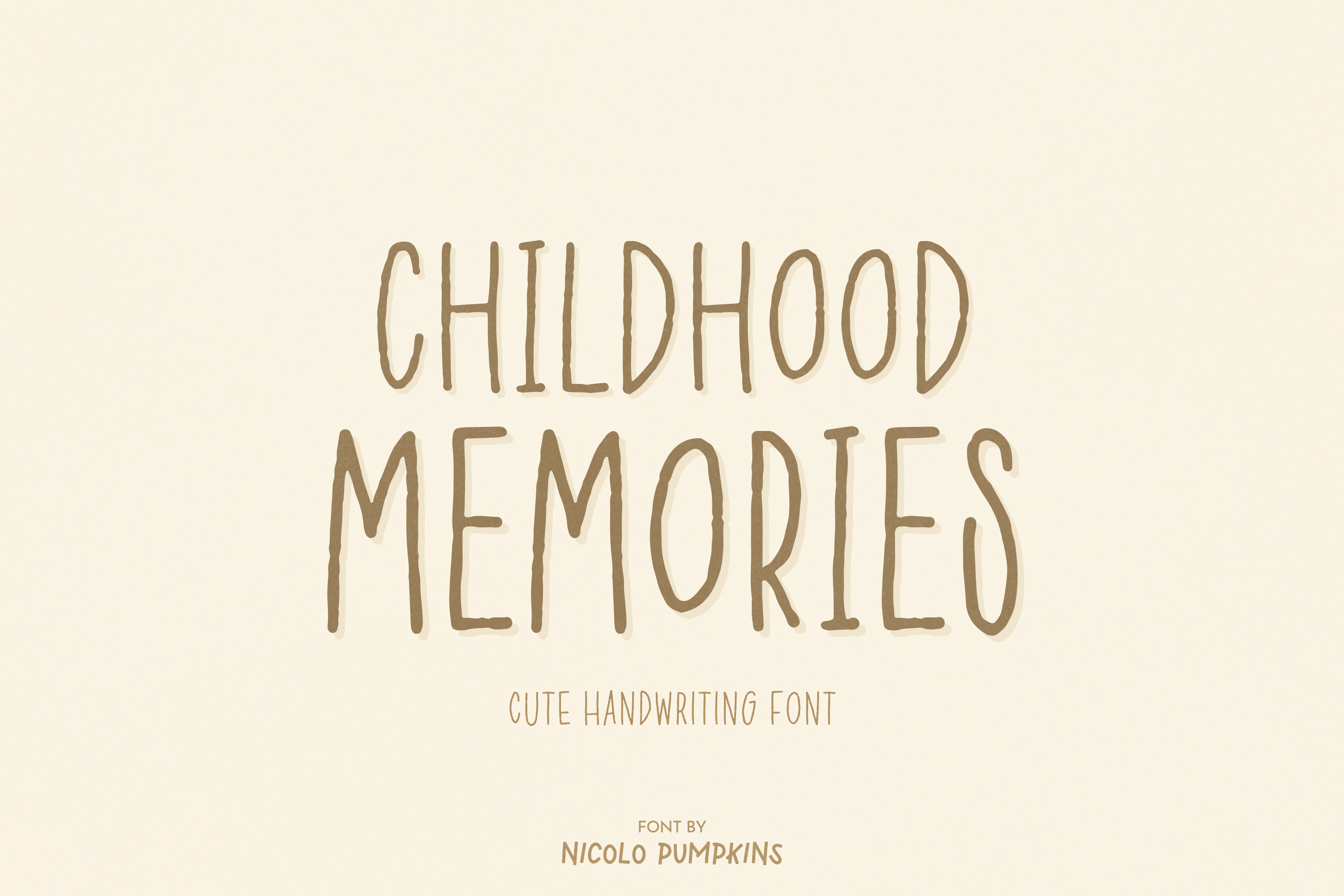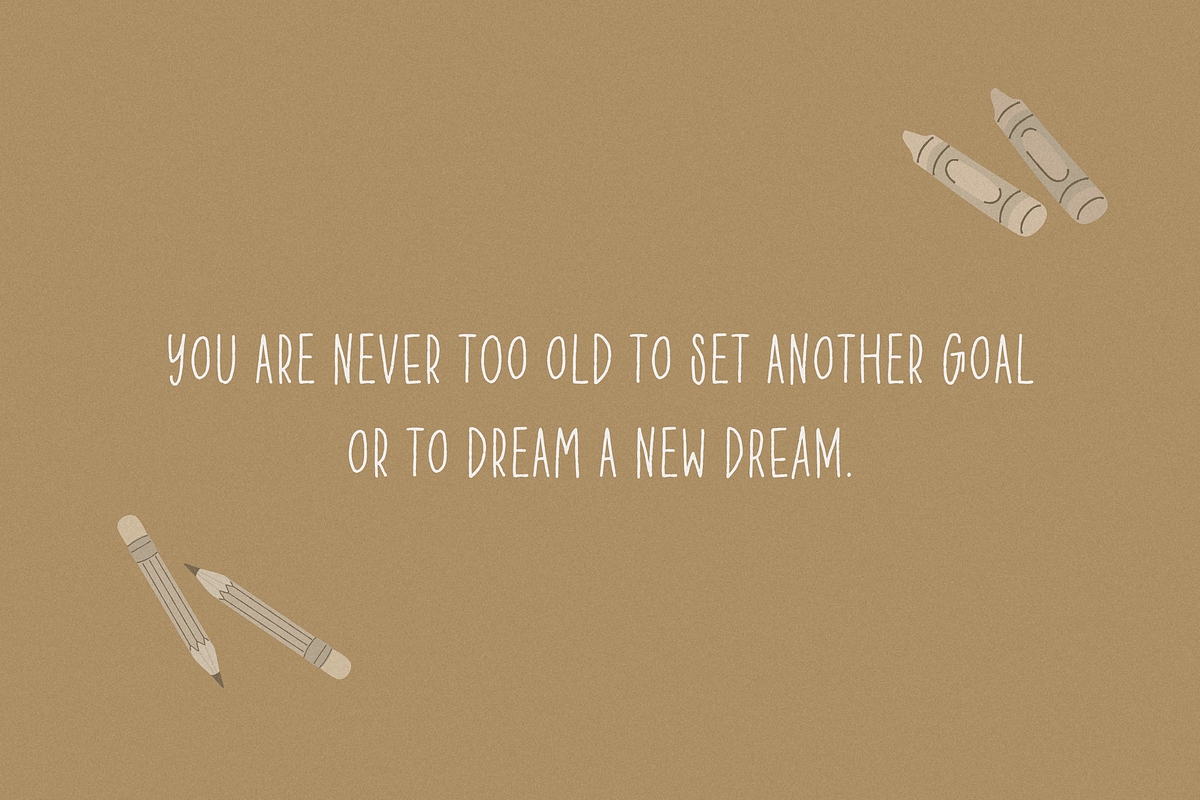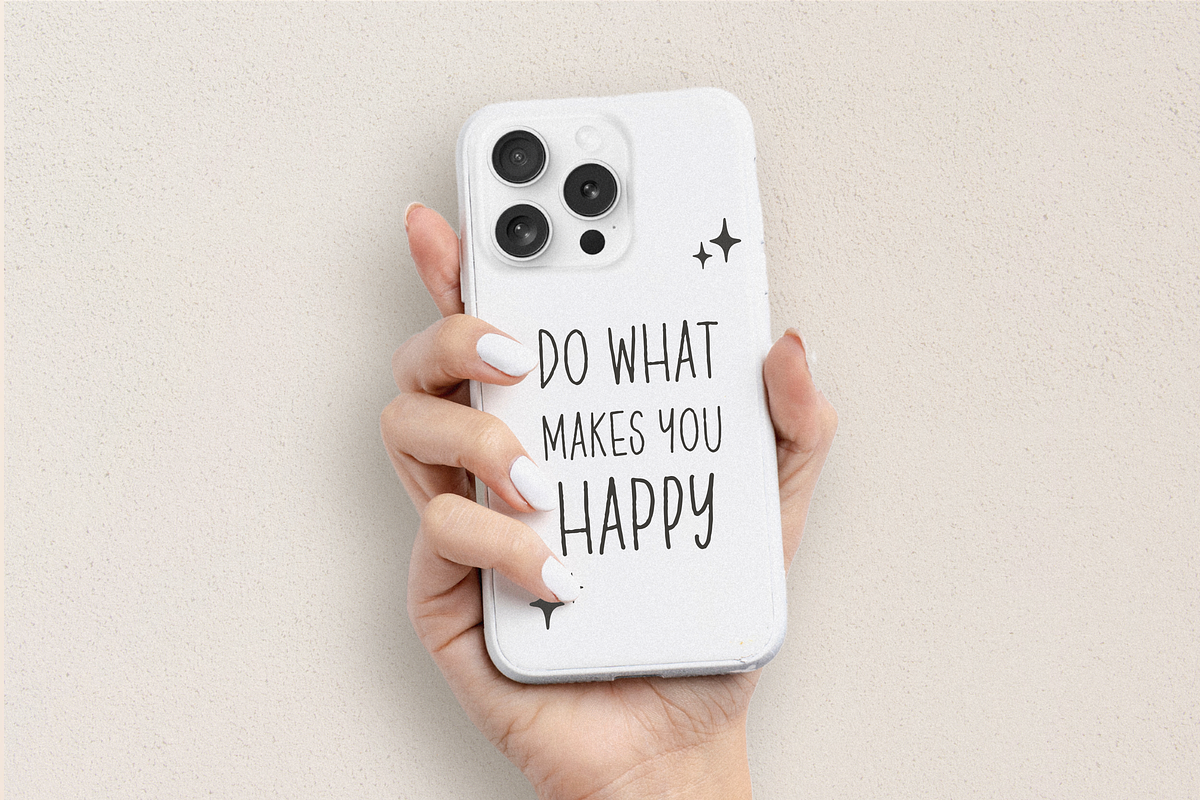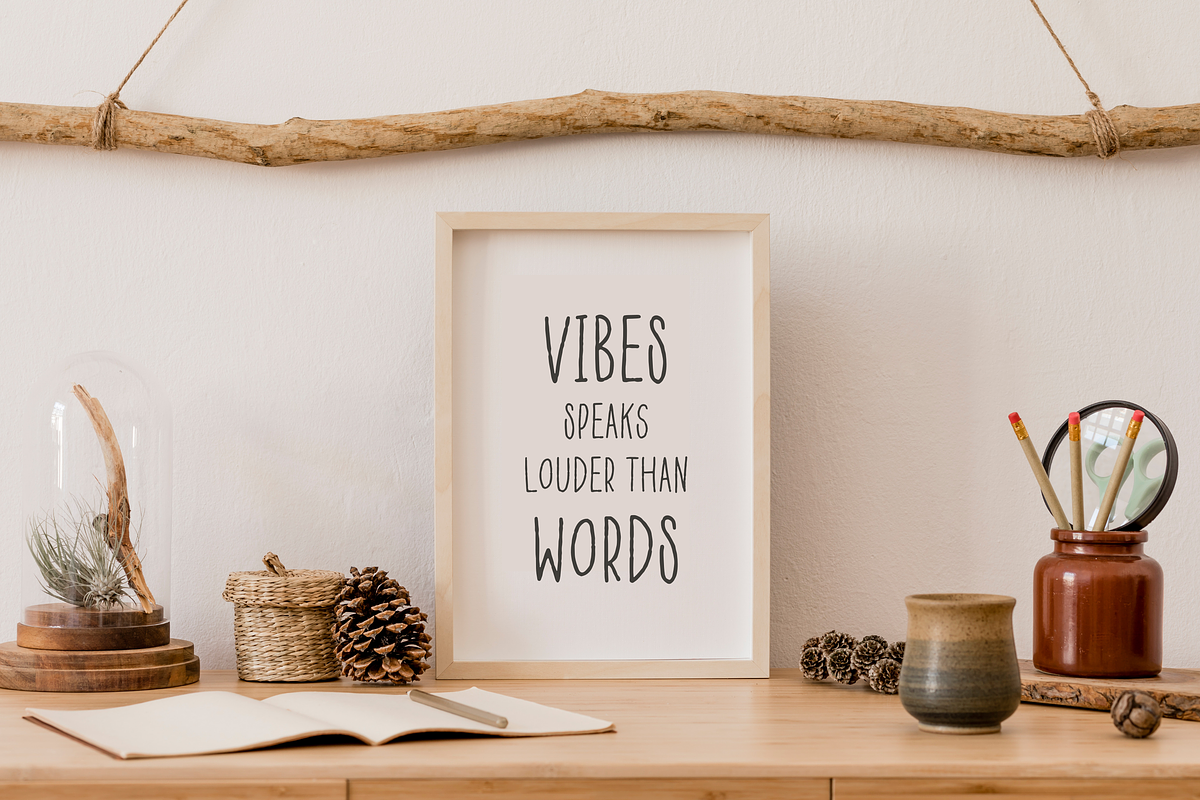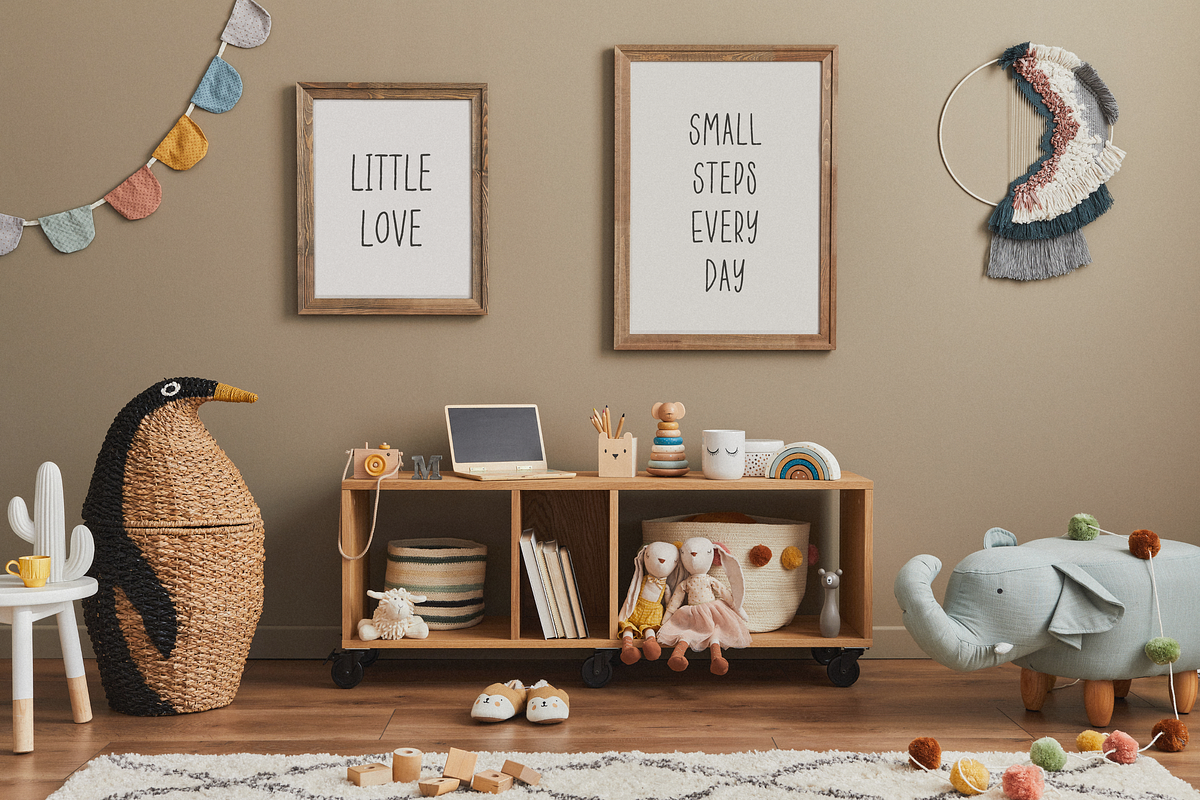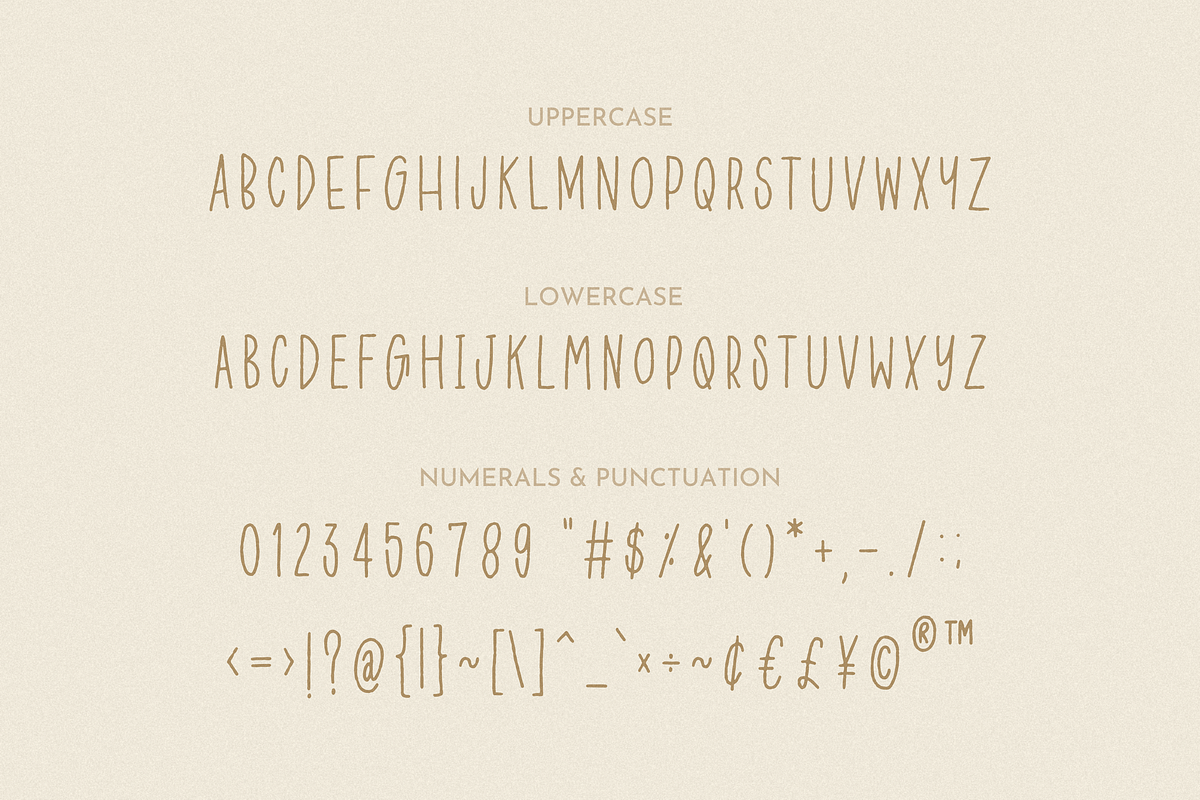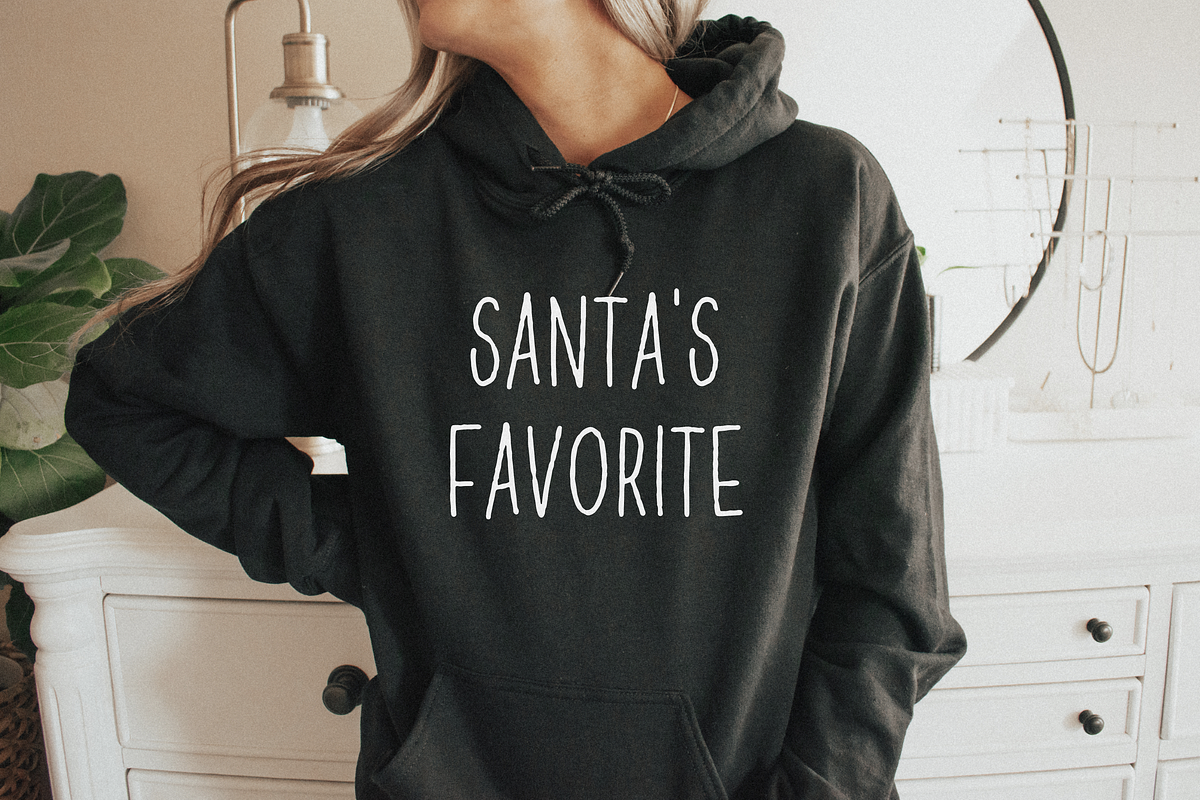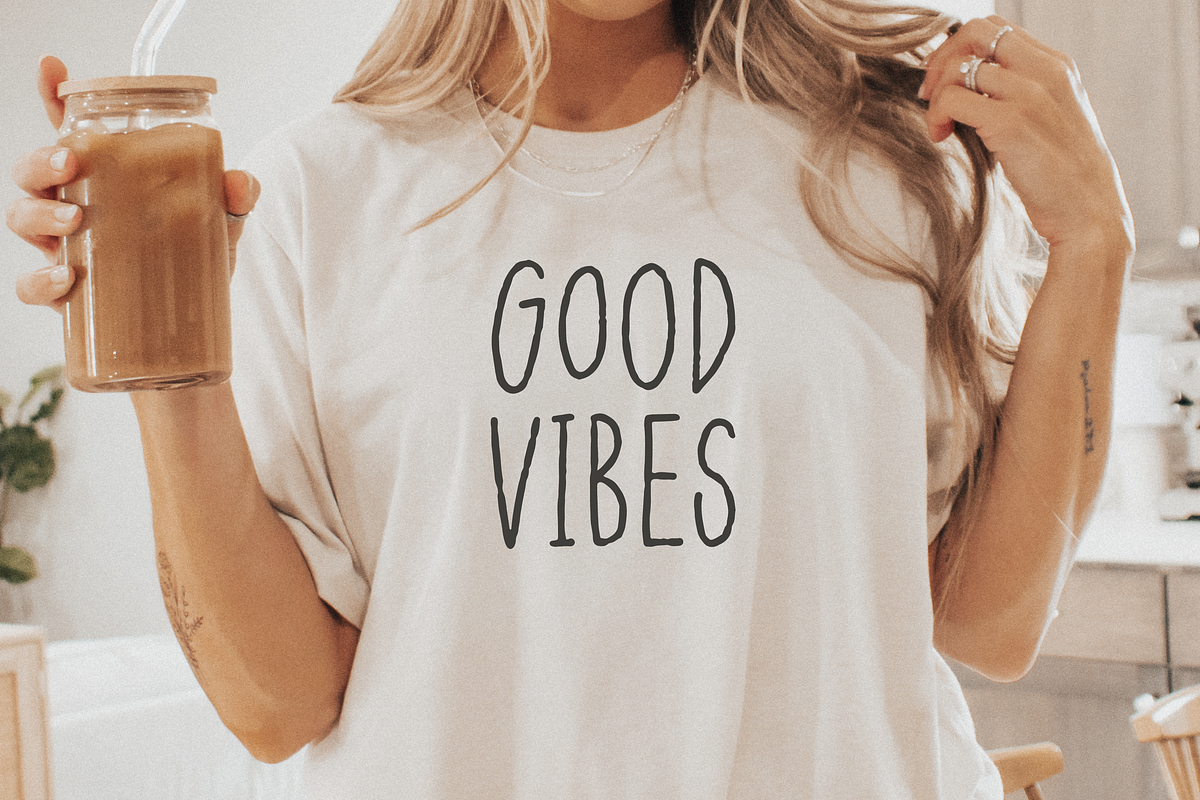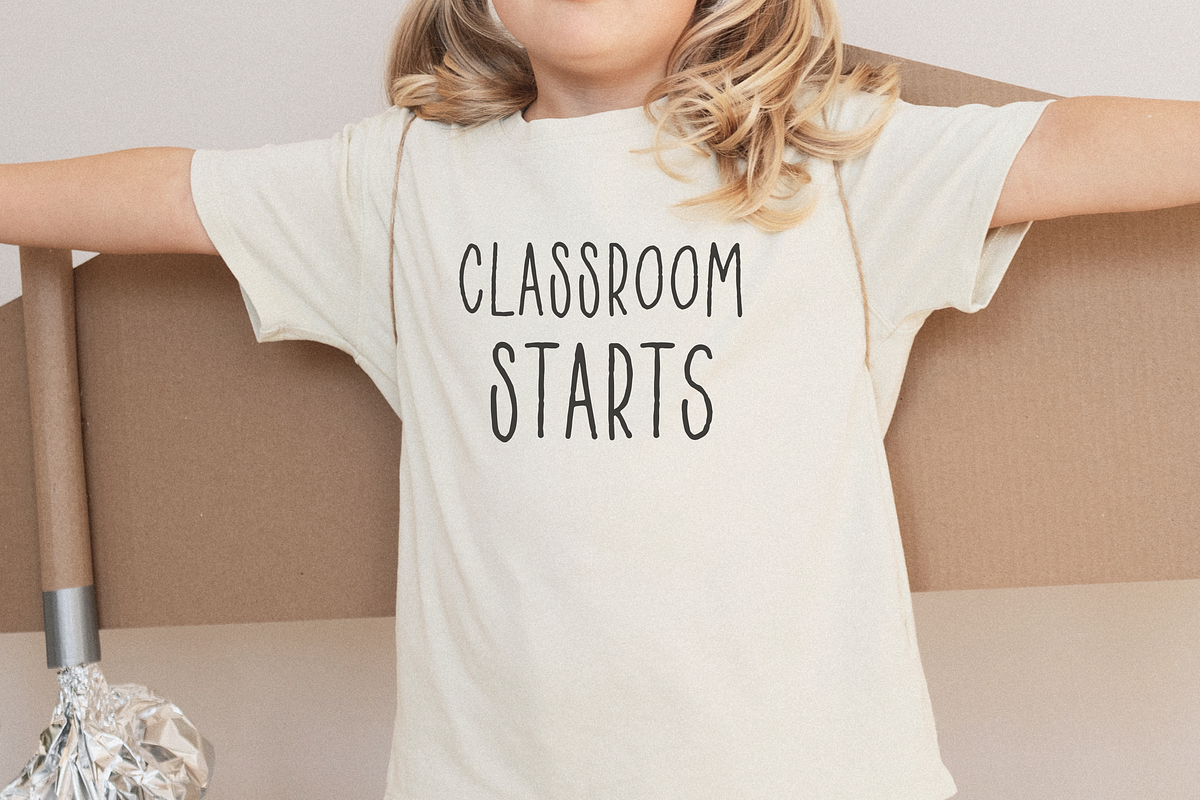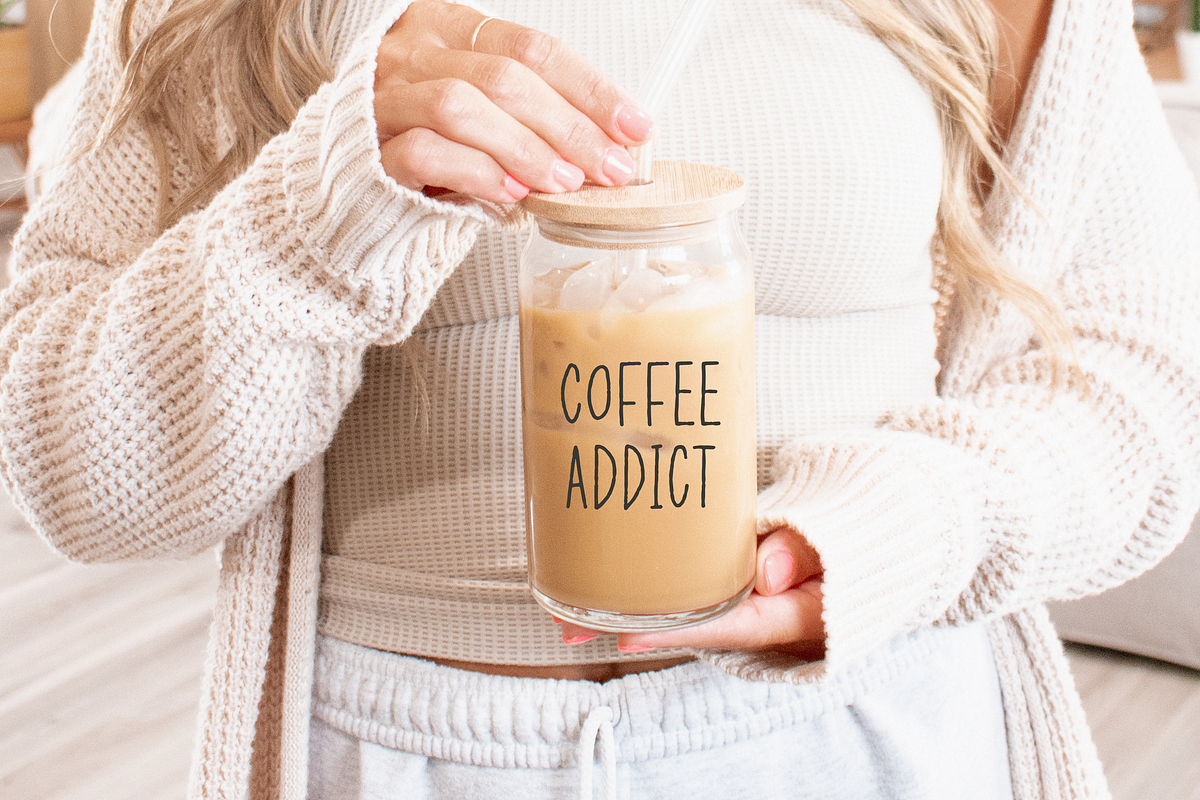
CHILDHOOD MEMORIES Font
CHILDHOOD MEMORIES FONT A cute & neat handwritten font with chalk-like-texture. (ALL CAPITAL LETTER)
✦ CHILDHOOD MEMORIES FONT is perfect for: digital note taking on digital planner, shirts, mugs, invitations, greeting cards, Procreate, and more!